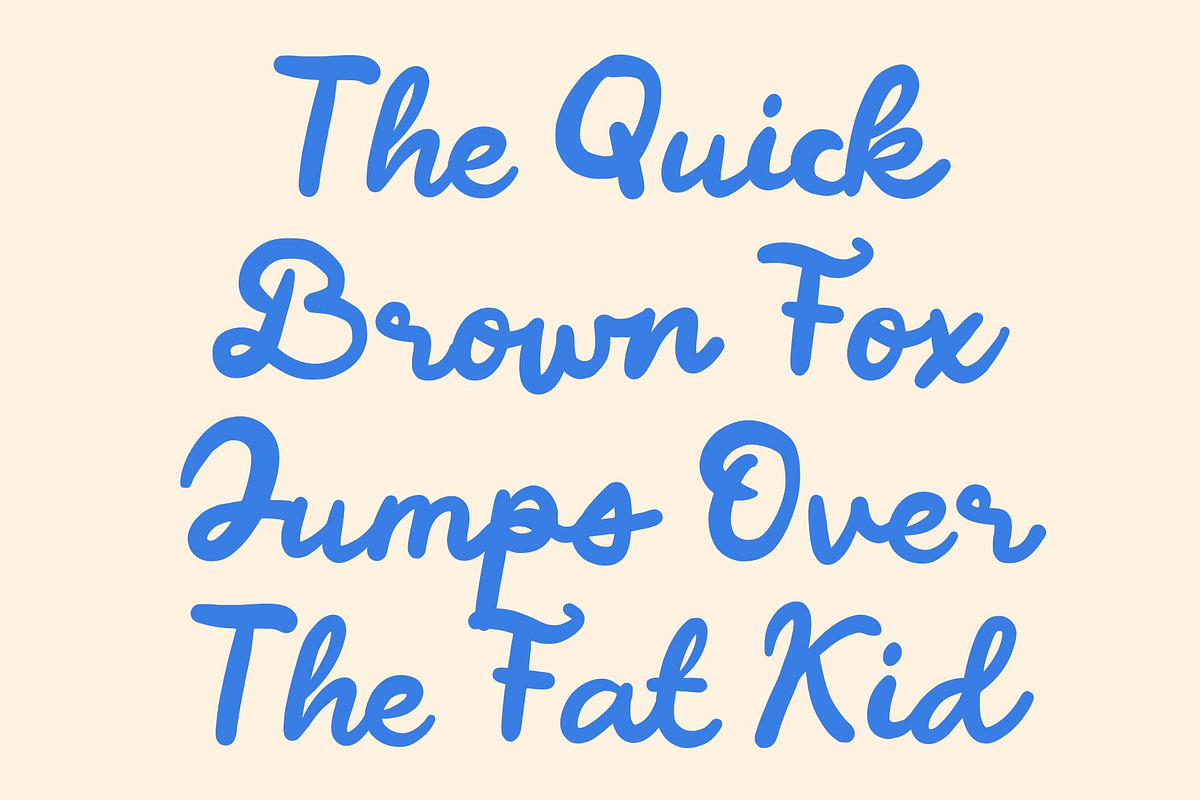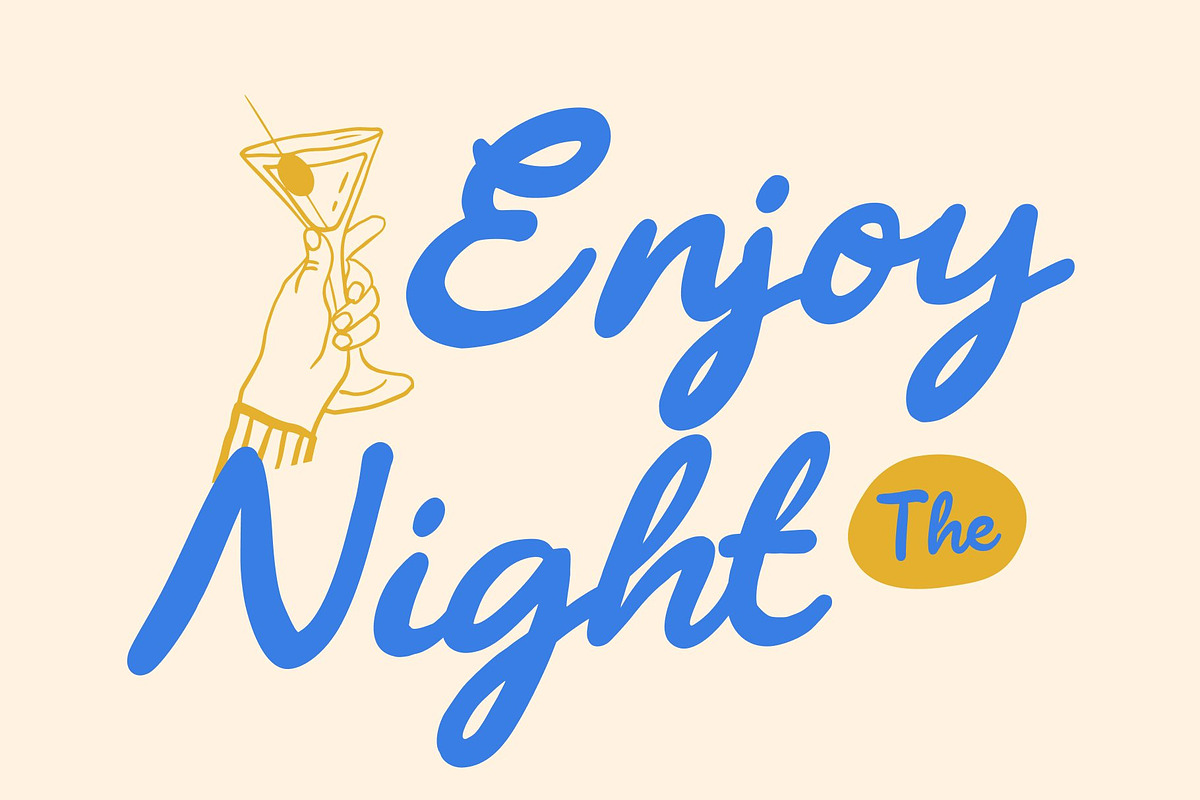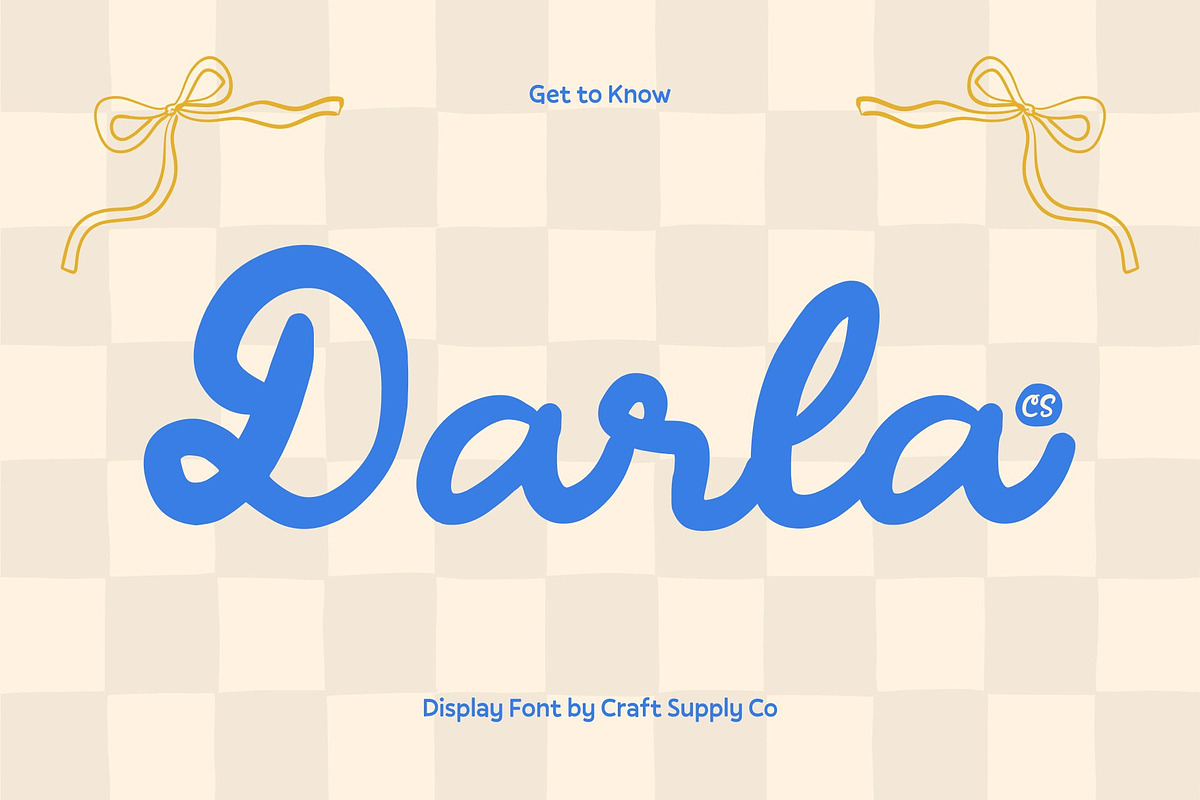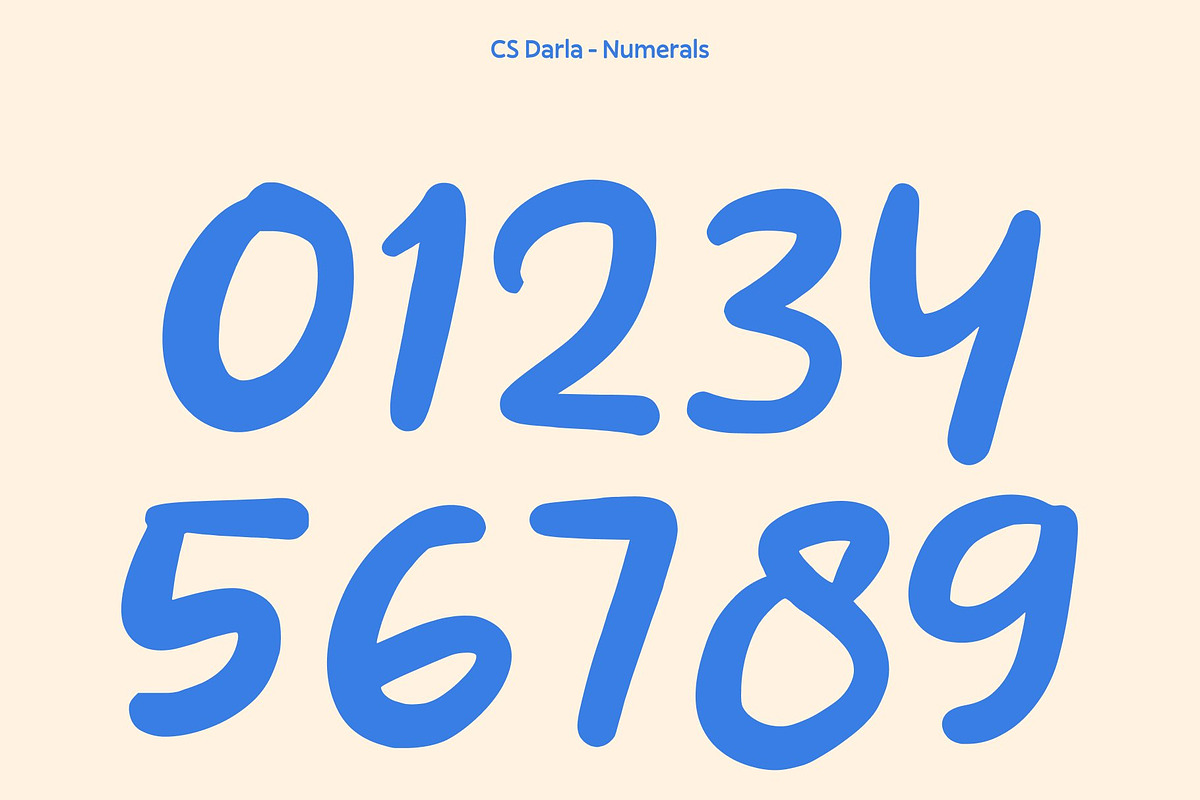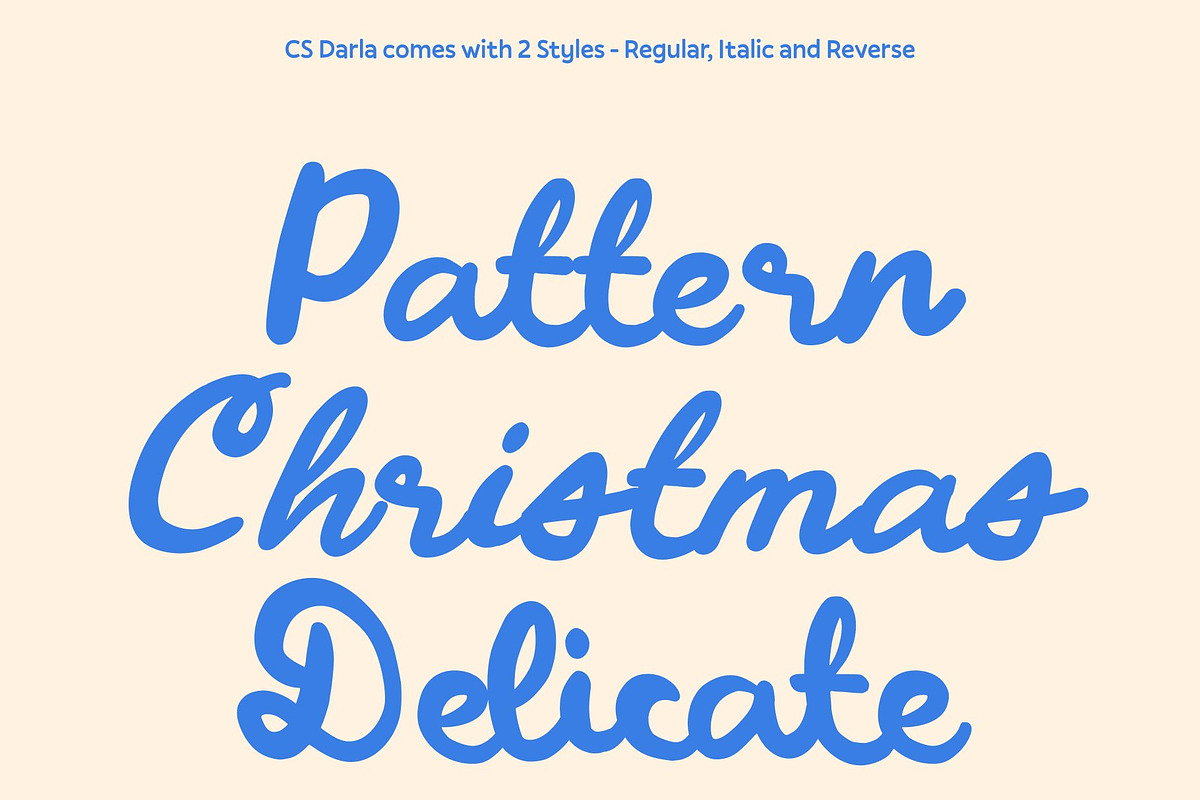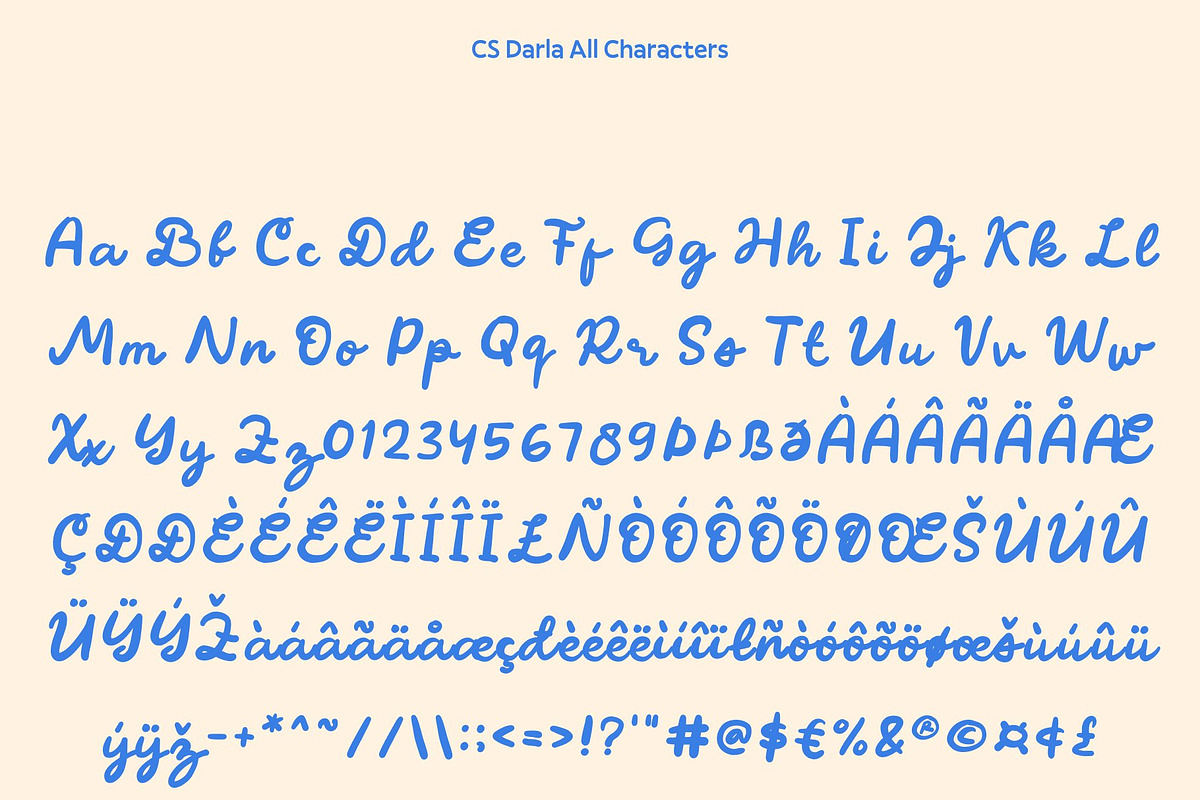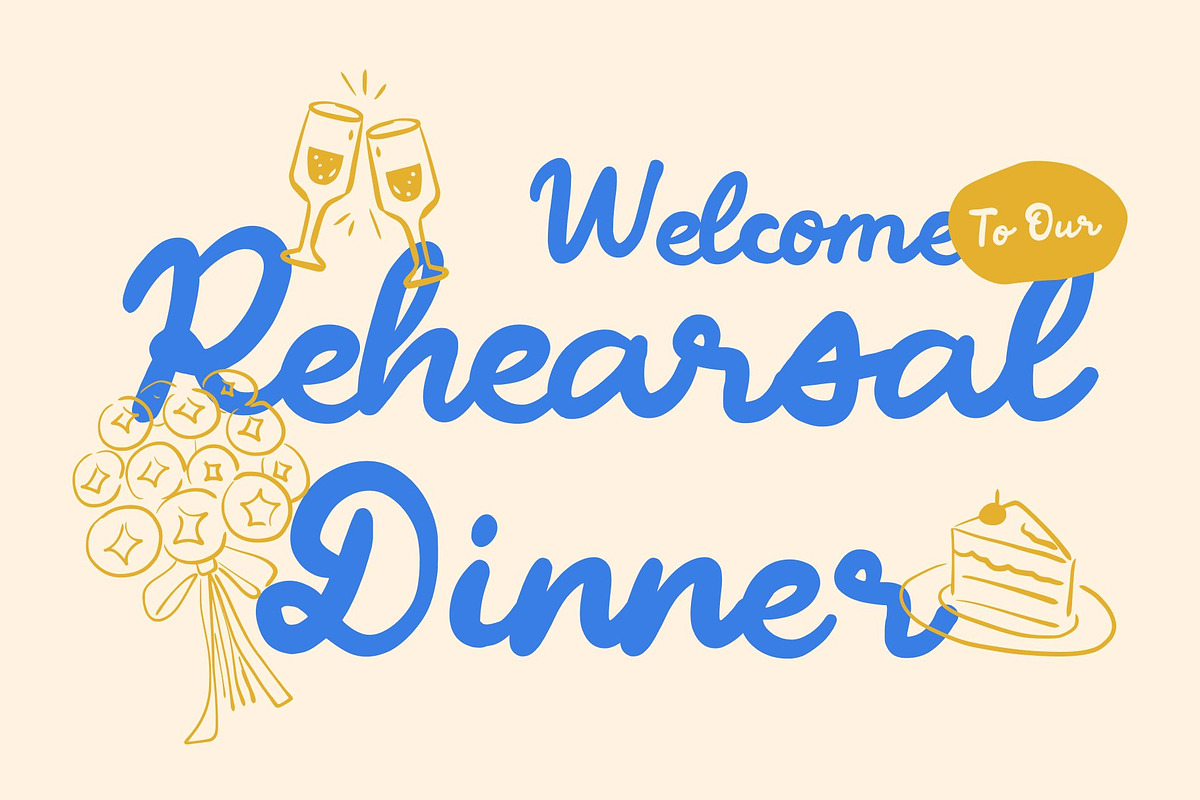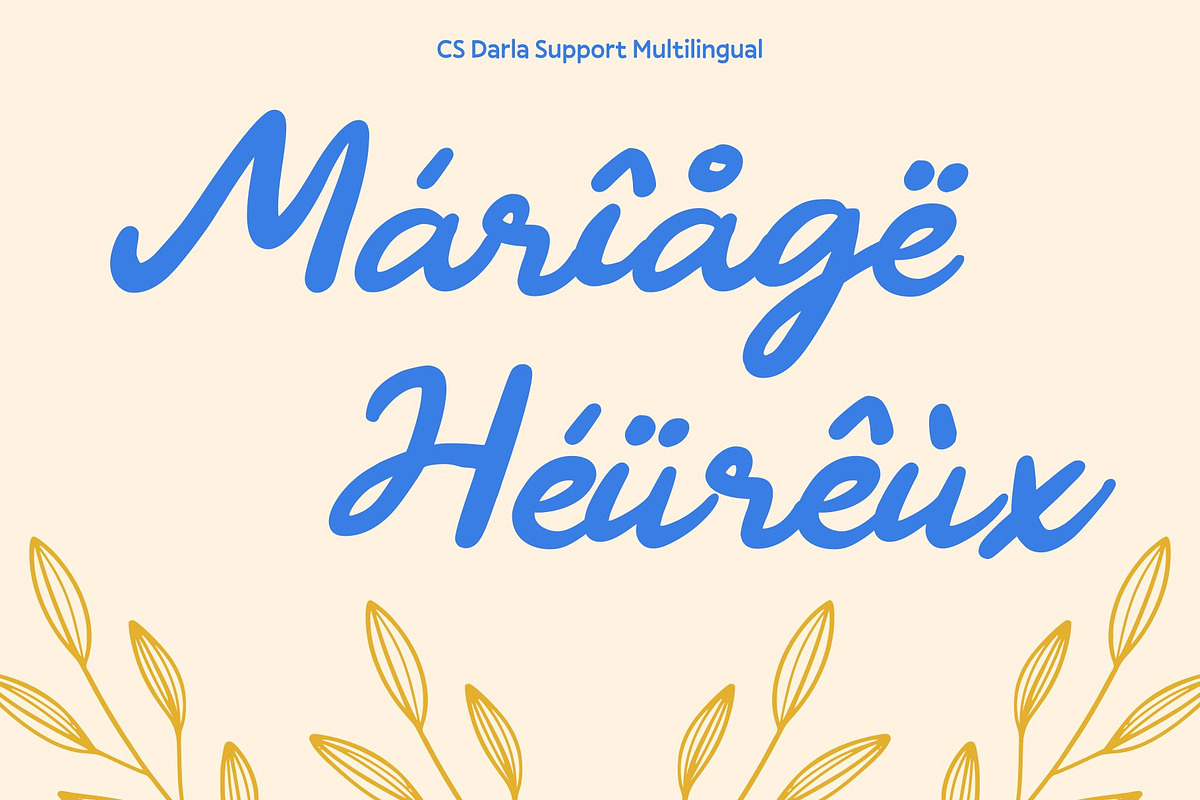
CS Darla – Handwritten Script
CS Darla – Chic Handwritten with Delicate Beauty
Chic Handwritten Script Font with Refined Charm This is a chic handwritten script font designed to express delicate beauty and graceful individuality. With its smooth strokes and stylish flow, this font captures the essence of modern elegance while maintaining a natural handwritten feel. Every letter is crafted to feel personal and refined, making a perfect choice for designs that seek sophistication, warmth, and a fashionable aesthetic.
Delicate Strokes with Creative Flourishes The distinctive character of this font lies in its delicate strokes and thoughtfully designed creative flourishes. Each curve and connection adds visual interest without overwhelming the composition, allowing the font to remain elegant and readable. These special details give a unique personality that stands apart from ordinary script fonts, delivering a sense of artistry and exclusivity that enhances any design.
Beauty Expression for Stylish Visuals This font conveys beauty through its soft movement and balanced rhythm, making it ideal for elegant and expressive visual storytelling. Its chic handwritten style brings a sense of intimacy and authenticity, perfect for projects that require a refined yet approachable tone.
Perfect for Branding, Invitations, and Fashion Graphics Designed for versatile creative applications, this font excels in branding, invitations, fashion graphics, packaging, and editorial layouts. Its elegant handwritten form makes it especially suitable for beauty brands, wedding stationery, boutique logos, and lifestyle visuals.
- CS Darla Regular
- CS Darla Italic
- CS Darla Reverse Italic